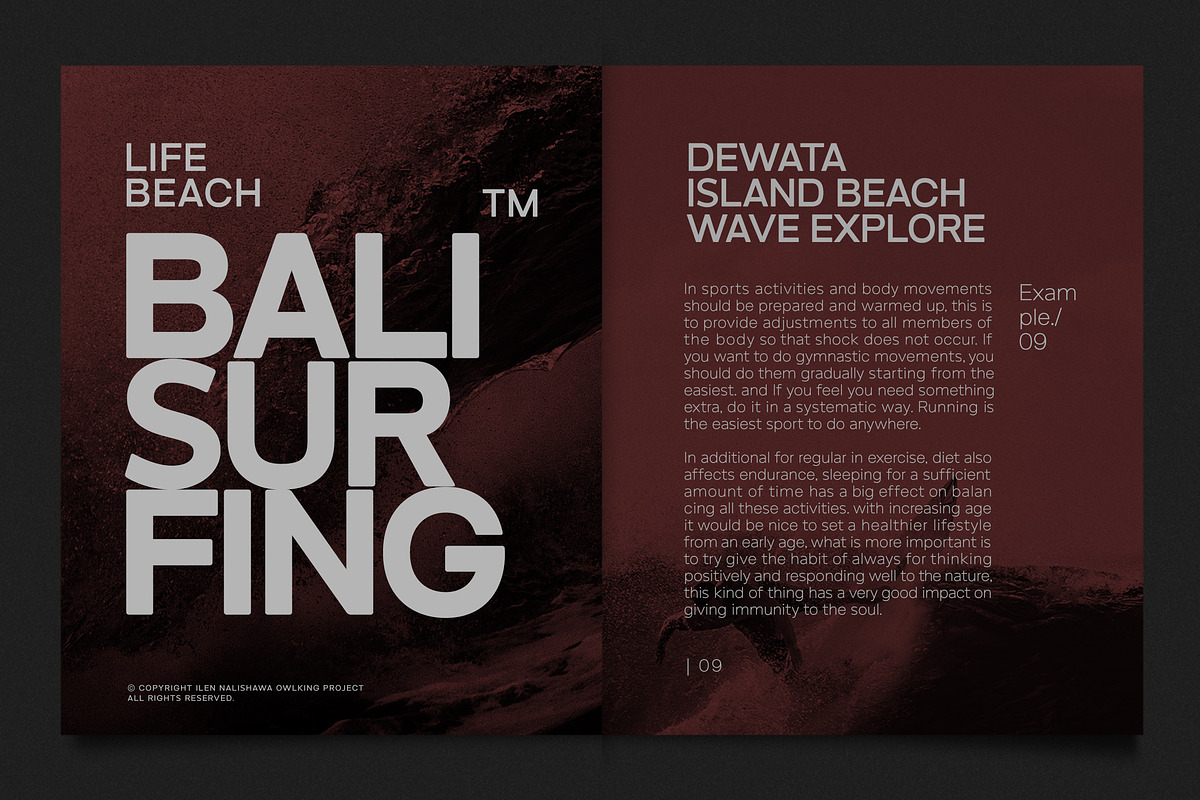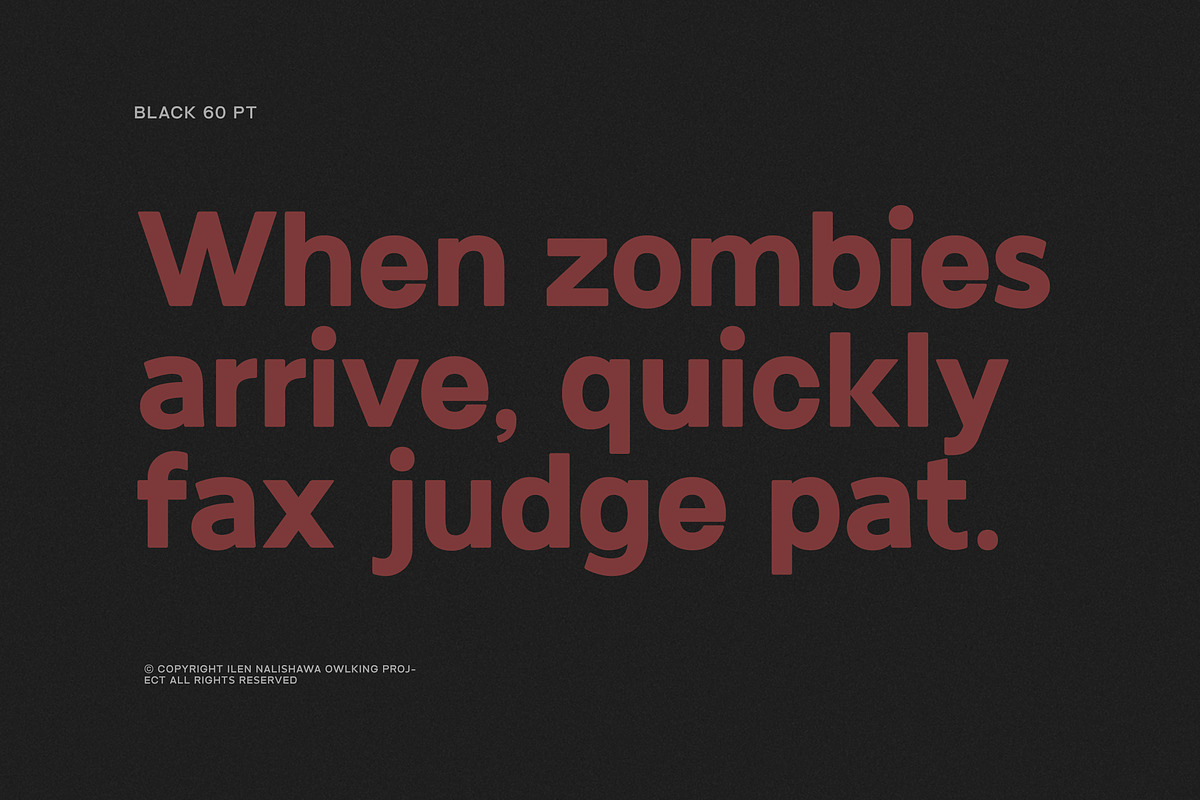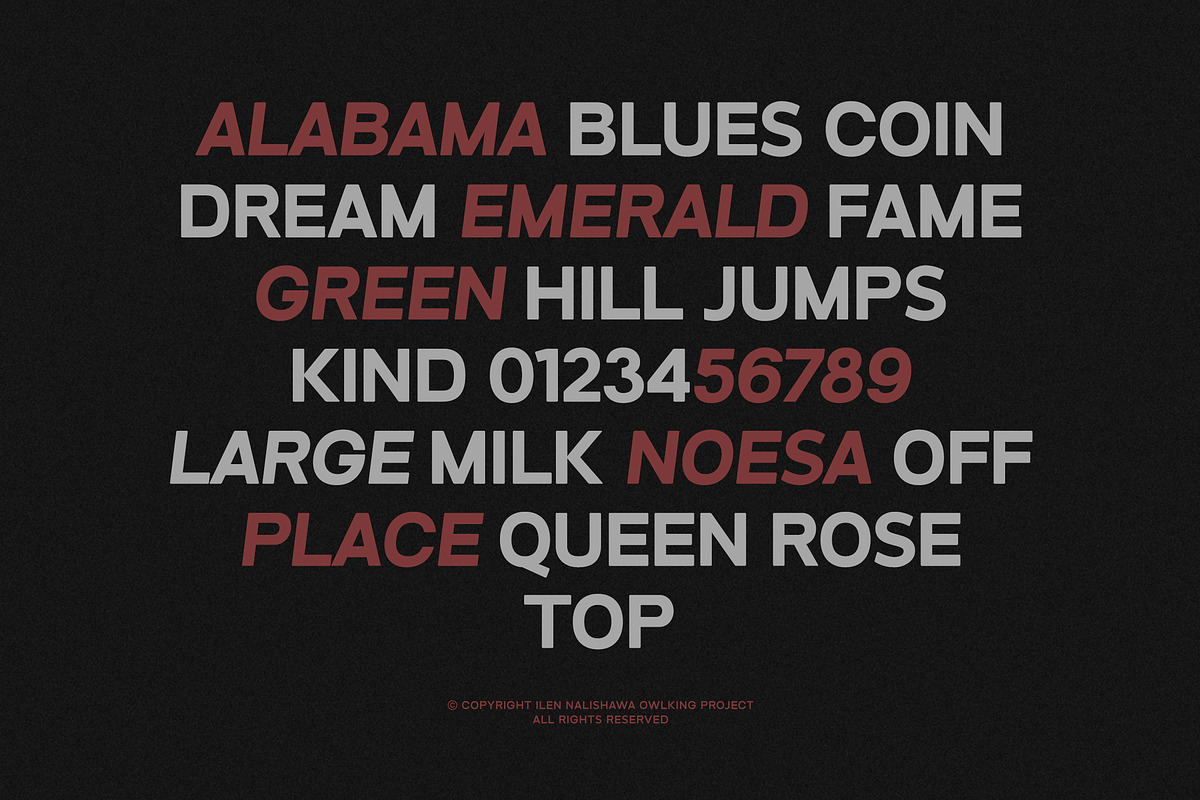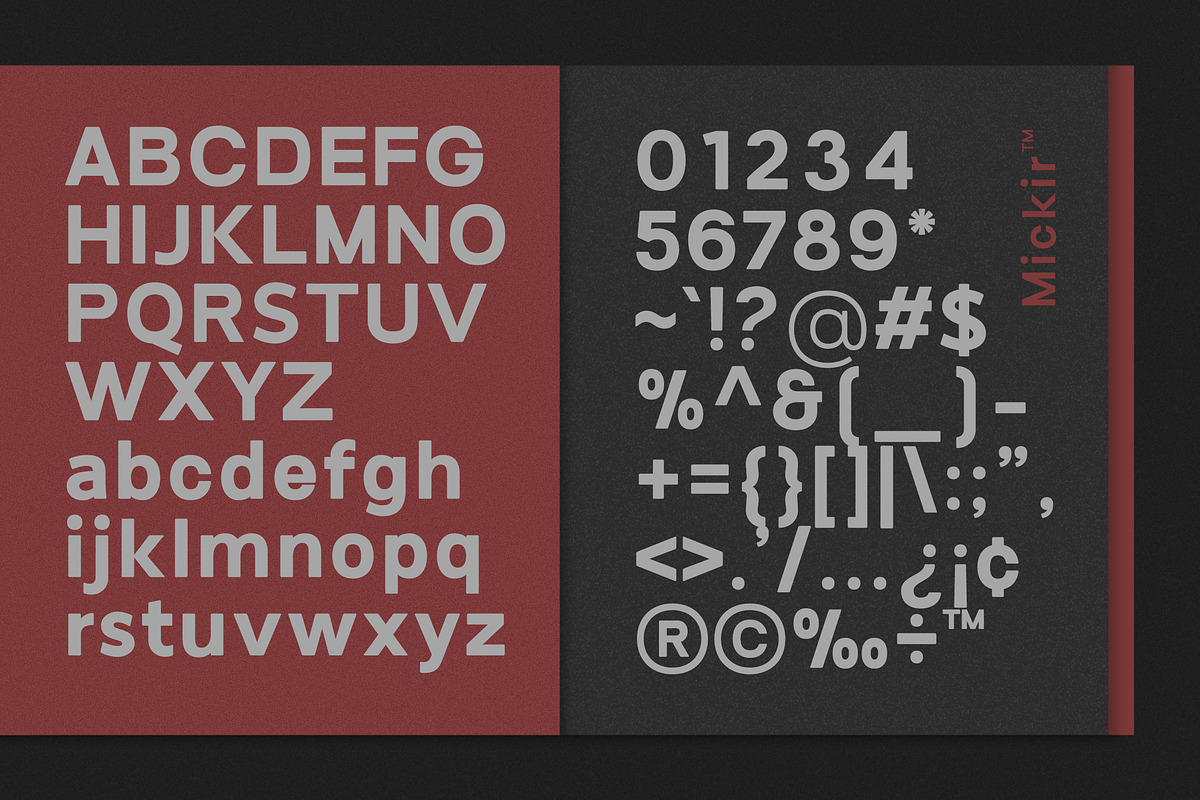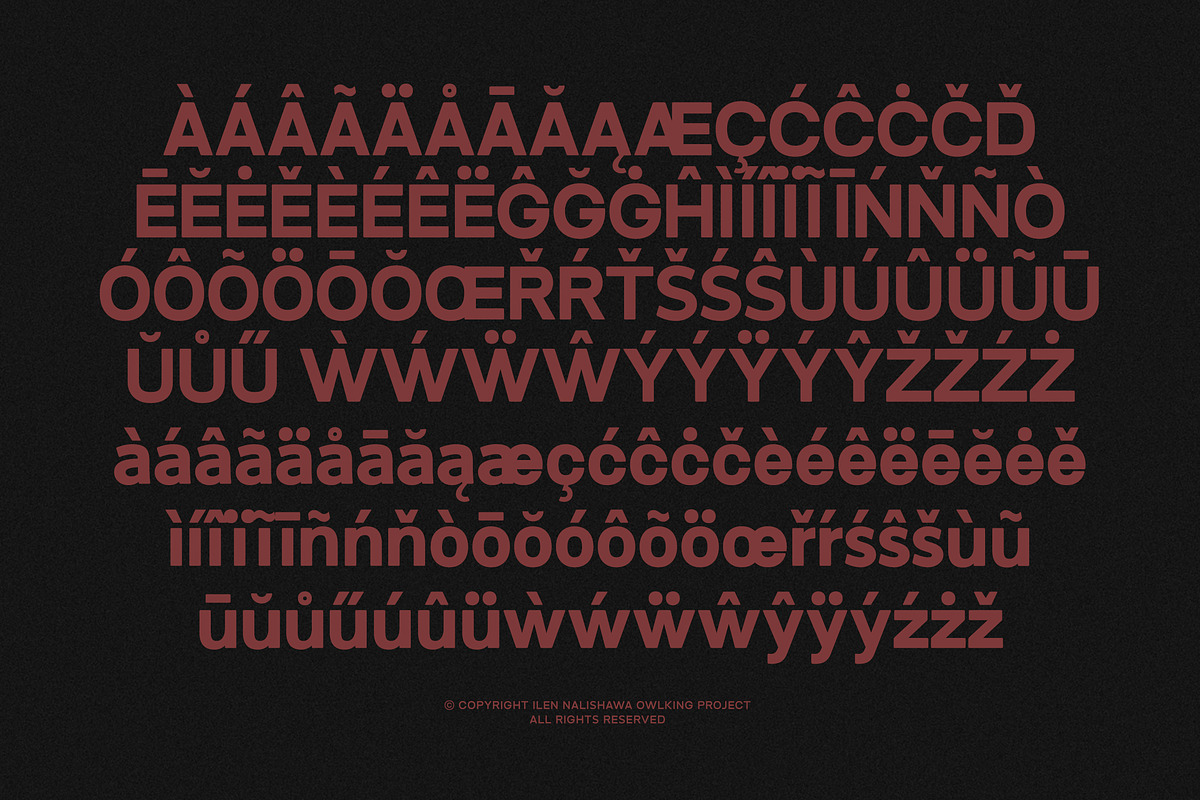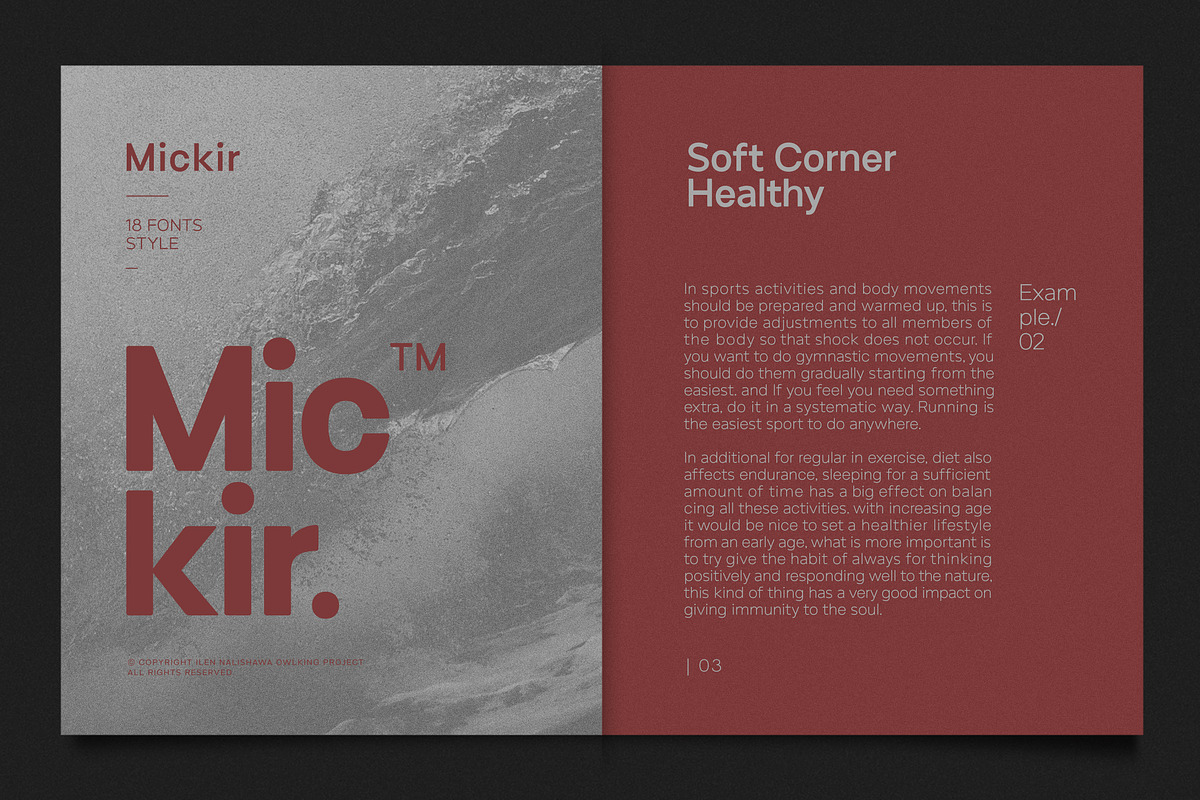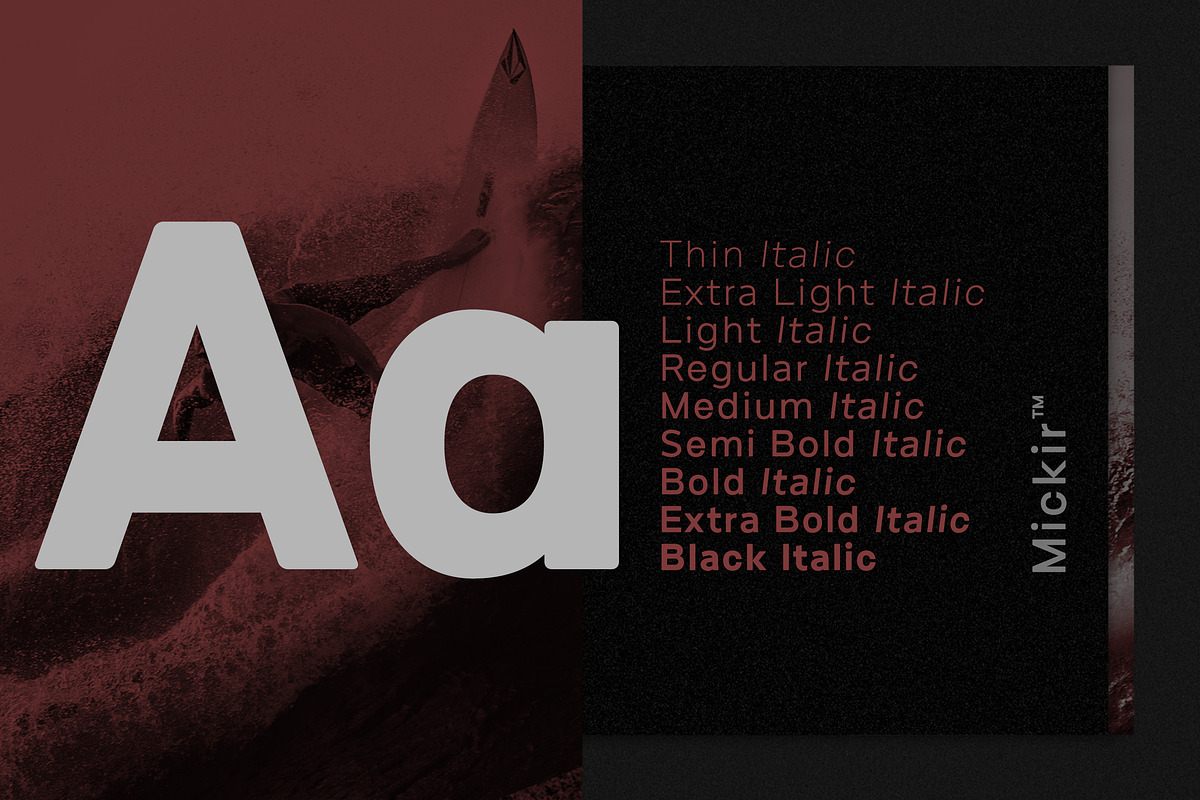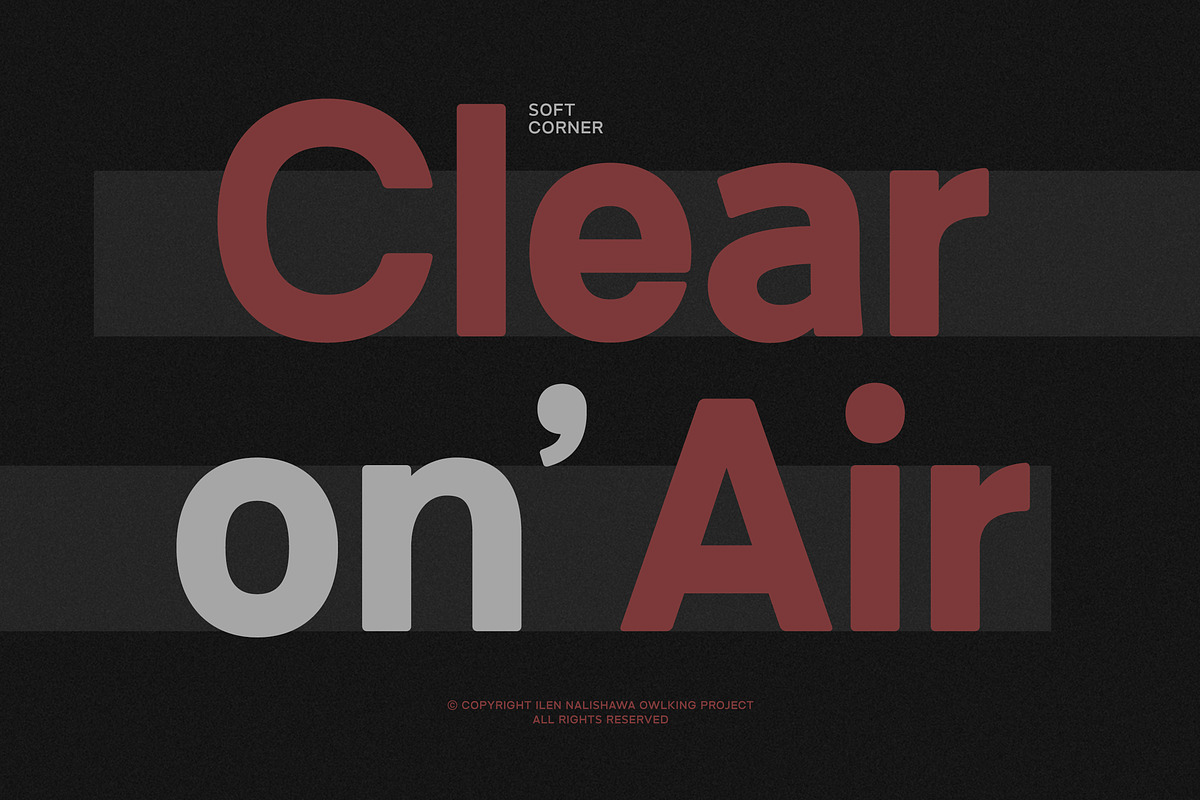
Mickir
Mickir is a sans font with soft & rounded edges. a font with 18 families that feature a wider variety of thicknesses and slopes, with many style options within a single family, this font is great for logos, headings, & can even work well for text. Mickir is very minimalistic with clean forms, and more professional.
- Uppercase A - Z
- Lowercase a - z